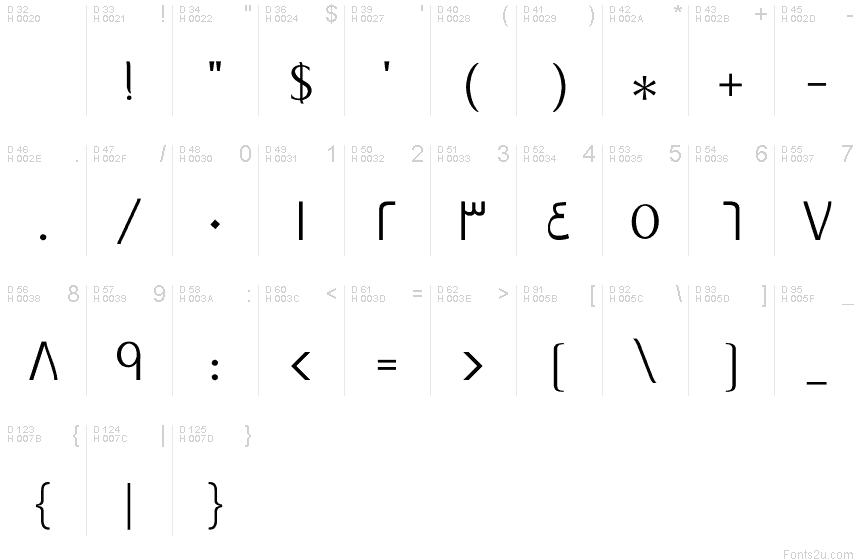
GE Smooth Light by Boutros International is a free Arabic sans serif with slender strokes and an even, flowing build. Rounded curves and clean connections create an orderly texture across the lettering. The light weight keeps the page airy.
Editorial design is its clearest setting, especially for magazine features and book covers about culture, architecture, or the arts. The measured shapes can also suit bilingual brand identities and refined packaging, where Arabic lettering should feel current rather than ornamental. In publishing, the font can establish a quiet hierarchy across section openers, captions, and cover lines without turning the text into decoration.